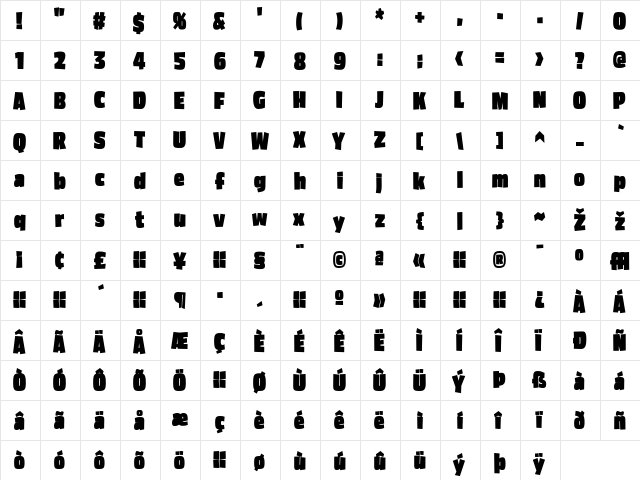
Asphalt Regular
| Foundry | Tobias Frere-Jones, designer. Produced by The Font Bureau, Inc |
Design Context for Asphalt Typeface
Asphalt is a composed and adaptable typeface that performs quietly and consistently across a wide range of design contexts.